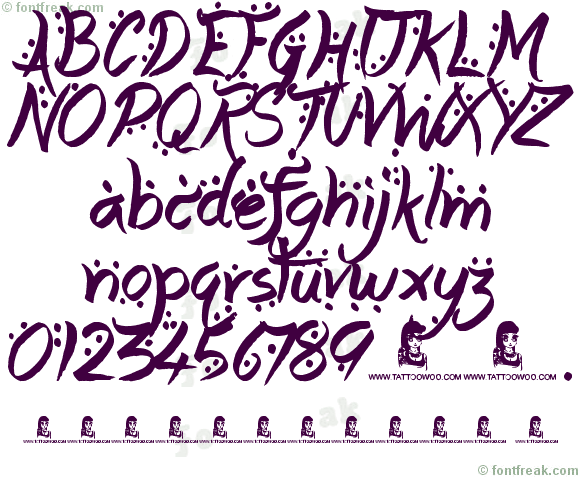
Arabic Magic
About Arabic Magic
Arabic Magic is a captivating decorative font designed by Jonathan S. Harris, released in 2013 under the freeware license. This font merges traditional Arabic aesthetics with a modern flair, making it a unique addition to various design projects. Arabic Magic falls into the decorative category, characterized by its dynamic, flowing lines and whimsical forms. The strokes exhibit a moderate weight, adding a sense of elegance while maintaining readability. The playful design incorporates decorative elements that evoke a sense of enchantment, making it visually striking and memorable.
This font is particularly versatile, suitable for a range of creative applications. It shines in wedding invitations, where its enchanting style can add a touch of romance and sophistication. Movie posters can benefit from its unique character, drawing attention and creating an atmosphere of intrigue. Restaurant menus featuring Arabic cuisine will stand out with this font, enhancing the cultural experience for diners. Additionally, it can be used in branding for small businesses that wish to convey a sense of magic and allure, appealing to their target audience effectively.
What sets Arabic Magic apart is its ability to blend traditional influences with modern design sensibilities. This font not only captures attention but also evokes emotion, making it a perfect choice for projects that aim to convey a narrative or theme. For those looking to incorporate this captivating typeface into their work, the Arabic Magic font free download is an excellent opportunity to explore its enchanting potential.